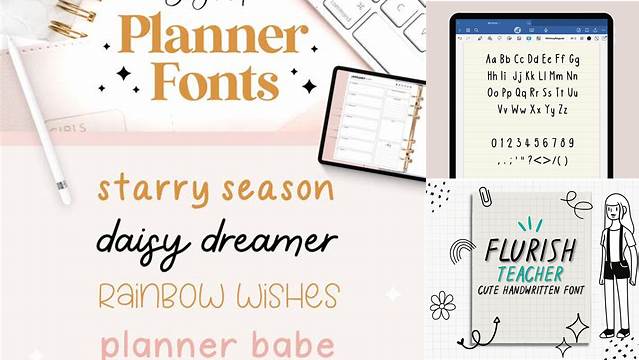
Free Handwritten Fonts For GoodNotes: Enhance Your Notes
Hey guys! Are you looking to spice up your GoodNotes experience with some awesome handwritten fonts? You've come to the right place! In this article, we're diving deep into the world of free handwritten fonts that you can use to make your digital notes look stunning and feel more personal. We'll cover everything from why handwritten fonts are so great for note-taking to where you can find the best ones and how to install them. So, grab your stylus and let's get started!
Why Use Handwritten Fonts in GoodNotes?
First off, let's talk about why you should even bother with handwritten fonts in the first place. I mean, GoodNotes already has some pretty decent default fonts, right? Well, while those fonts are functional, they can sometimes feel a little… sterile. Handwritten fonts, on the other hand, bring a touch of authenticity and personality to your notes. When you use a font that mimics actual handwriting, your notes feel more like your own, which can make them more engaging and easier to remember. Think about it: when you're studying for a big exam, wouldn't you rather be looking at notes that feel like they were crafted by you, rather than some generic computer font? Plus, using different handwritten fonts can help you organize your notes visually. You can use one font for headings, another for body text, and a third for important annotations. This visual distinction can make your notes easier to scan and digest. And let's be honest, a well-designed set of notes just looks cool. It's a great way to express your personal style and make your digital workspace a little more inspiring. There's also a psychological aspect to consider. When you're writing in a font that looks like your own handwriting, you might feel more connected to the material. It's almost like you're having a conversation with yourself on the page. This can be especially helpful for creative tasks like brainstorming or journaling. The handwritten style can help loosen you up and get your ideas flowing. So, whether you're a student, a professional, or just someone who loves taking notes, handwritten fonts can be a game-changer for your GoodNotes experience. They add personality, improve organization, and can even boost your creativity. What's not to love?
5. MyFonts
MyFonts is a huge online marketplace for fonts, with a massive selection of both free and premium fonts. While MyFonts is primarily known for its commercial fonts, they do have a free fonts section where you can find some great options. The MyFonts interface is very powerful, with advanced search filters that allow you to narrow down your search by style, weight, width, and more. This can be helpful if you're looking for a very specific type of handwritten font. To find free handwritten fonts on MyFonts, you can browse the free fonts section and search for keywords like "handwritten", "script", or "calligraphy". You can also filter by style to narrow down your results. Keep in mind that the license terms for free fonts on MyFonts can vary, so be sure to read the license information carefully before using a font in your project.
How to Install Handwritten Fonts in GoodNotes
Alright, you've found some killer fonts, now what? Don't worry, installing them in GoodNotes is a breeze! Let's walk through the process step-by-step so you can get those fonts working for you.
1. Download the Font Files
First things first, you need to download the font files to your device. When you download a font from one of the resources we talked about earlier (like DaFont or Google Fonts), it usually comes in a ZIP file. This ZIP file contains the font files themselves, which are typically in either .TTF (TrueType Font) or .OTF (OpenType Font) format. Both formats work perfectly fine with GoodNotes, so don't worry too much about the difference. Once you've downloaded the ZIP file, you'll need to unzip it to access the font files. On most devices, you can do this by simply tapping on the ZIP file. If you're on an iPad, the Files app will automatically unzip the file for you. If you're on a computer, you can usually unzip the file by right-clicking on it and selecting "Extract" or "Unzip". After you've unzipped the file, you should see one or more .TTF or .OTF files. These are the font files that you'll need to install.
2. Install the Font on Your iPad
Now that you have the font files, it's time to install them on your iPad. This process is a little different than installing fonts on a computer, but it's still pretty straightforward. The easiest way to install fonts on your iPad is to use a font management app. There are several font management apps available on the App Store, both free and paid. Some popular options include iFont, AnyFont, and Font Diner. For this guide, we'll use iFont, as it's a free and easy-to-use option. To install a font using iFont, first, download and install the app from the App Store. Once you've installed iFont, open the app and tap on the "Import Fonts" button. This will open the Files app, where you can browse to the location where you saved the font files. Select the .TTF or .OTF file that you want to install. iFont will then import the font and display it in the app. To install the font, tap on the "Install" button next to the font name. This will open a configuration profile in the Settings app. Tap on "Install" in the top-right corner of the screen, and then tap on "Install" again in the pop-up window. You may be prompted to enter your passcode to authorize the installation. Once the font is installed, you'll see a message saying "Profile Installed". You can now close the Settings app and the iFont app. The font is now installed on your iPad and ready to use in GoodNotes.